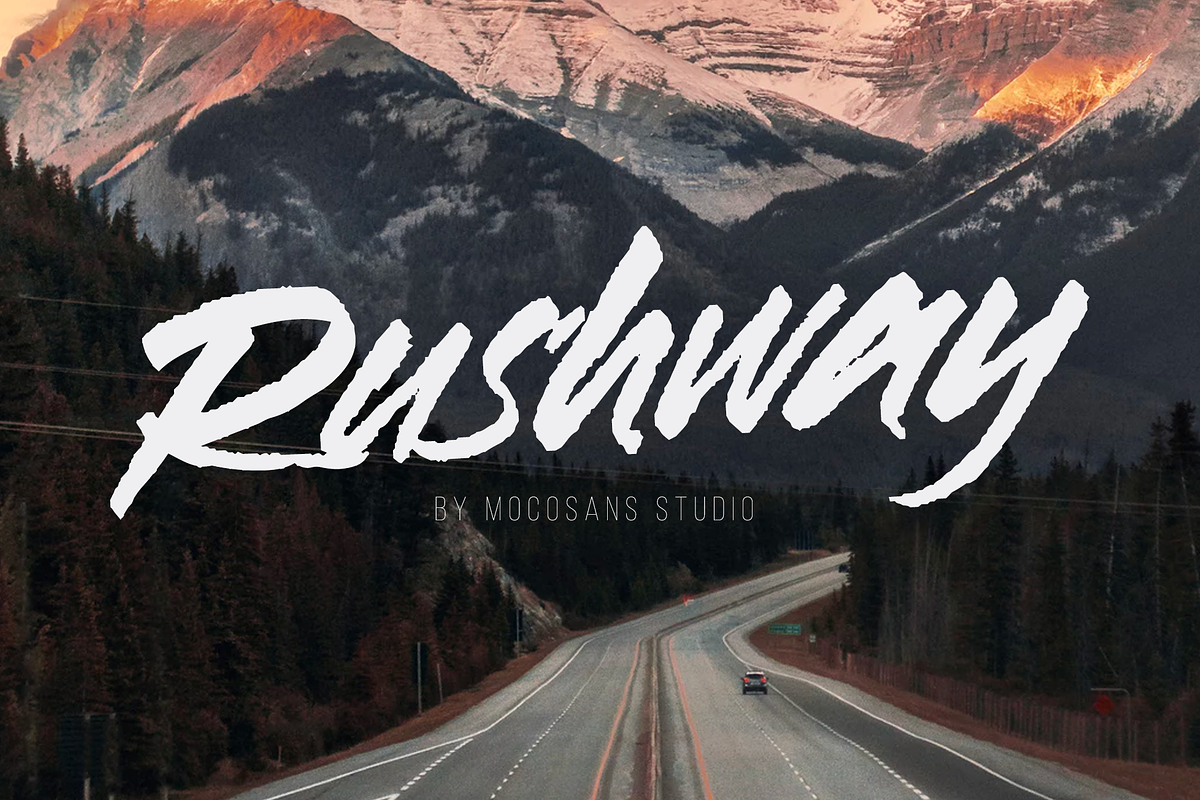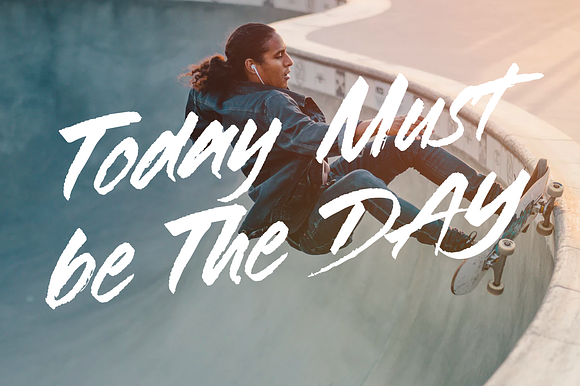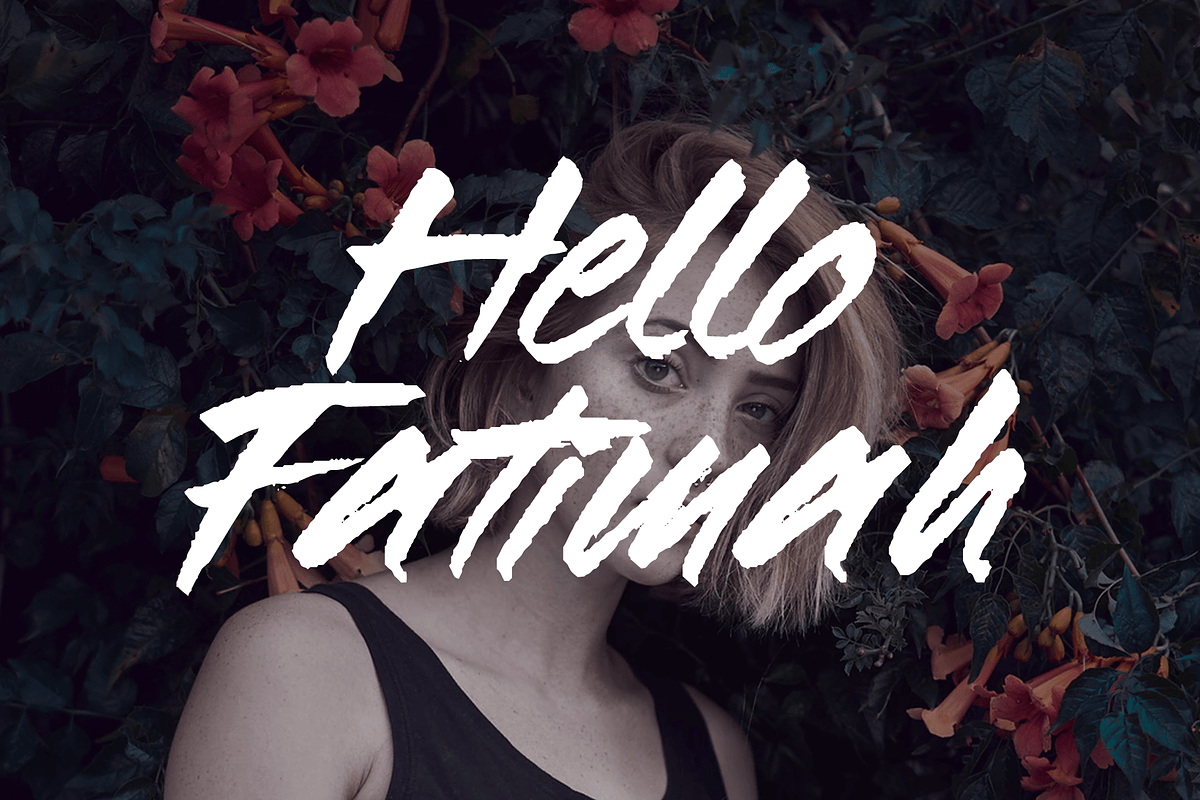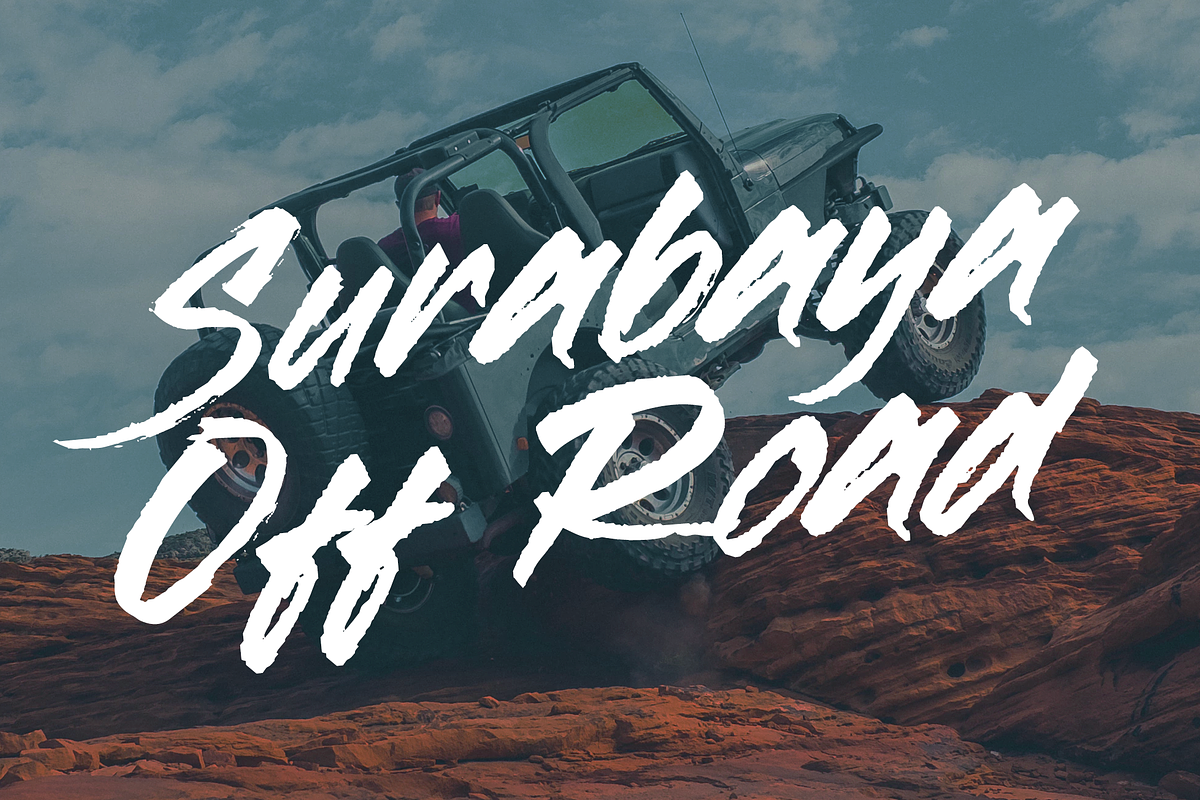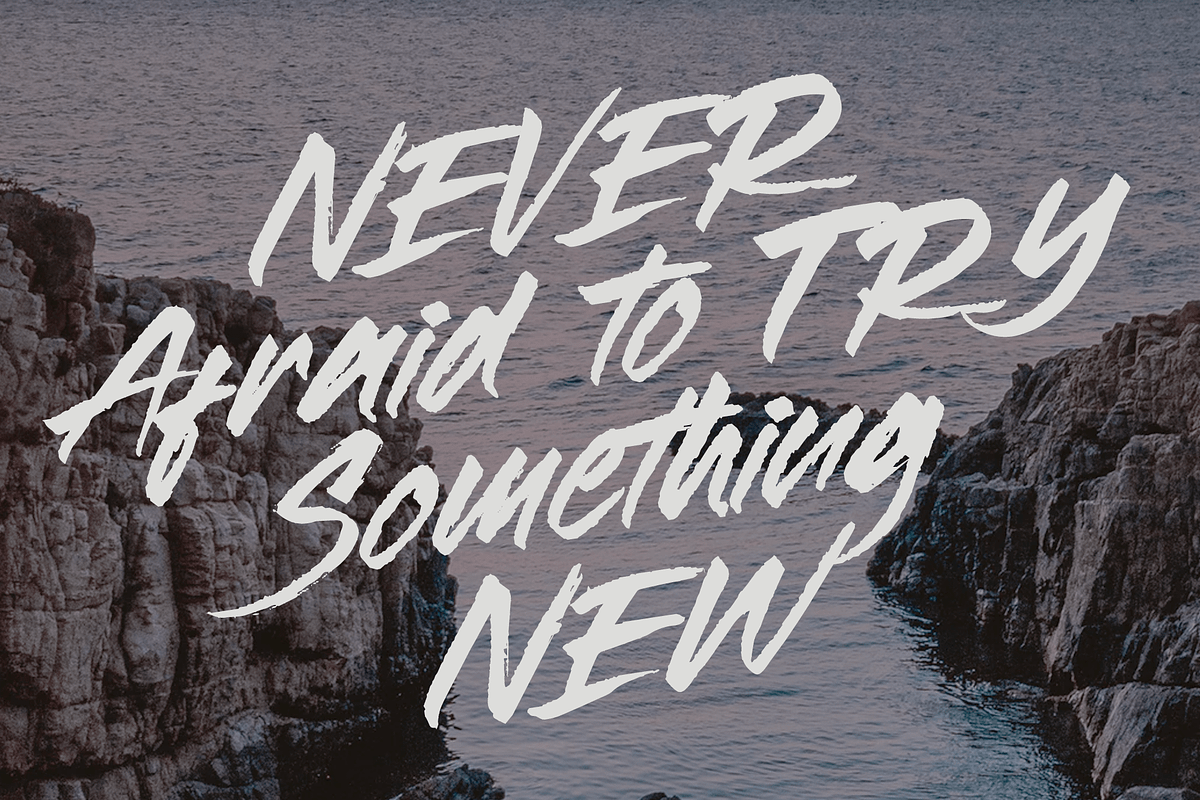
Rushway - Handwritten Display Font
Created with rebel strokes and dinamic swashes, this font will be great to emphasys your large headline and punch line. Works fine for both digital and print design; posters, digital advertising, instagram/facebook post, t-shirt, magazine, and etc. Best suitable for big texts but also good for smaller paragraph size.
Rushway - Handwritten Display Font by MOCOSANS fits naturally into Branding, posters, packaging, typography.